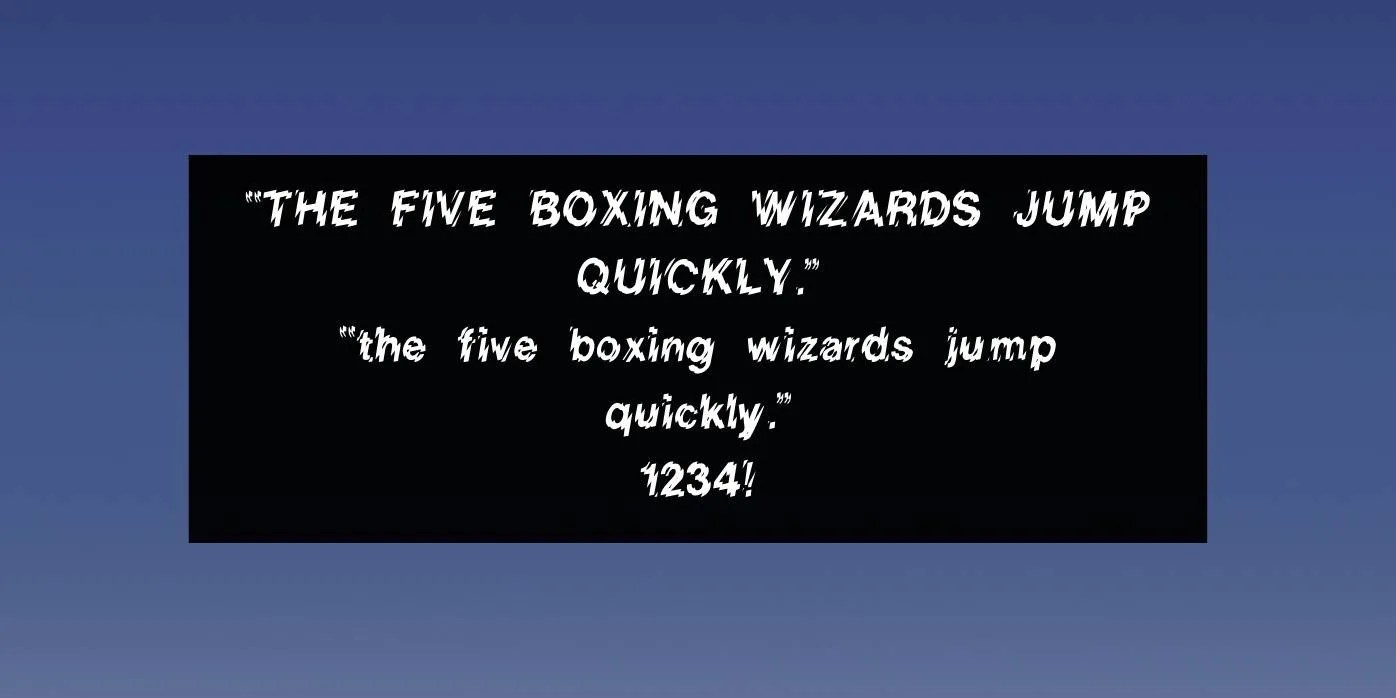
Glasses House Font . Glass houses by digital graphic labs. Download and install the glass houses font by digital graphic labs. Download glass houses font · free for commercial use · years in the making, glass houses has a shattered glass feel. Glass houses regular font by digital graphic labs. The glass houses font has been downloaded 73,212 times. File script name glashou.ttf download free for personal use. 167,460 downloads (13 yesterday) 3 comments 100% free. Download glass houses regular font | 1 style free font. Free download of glass houses font. Download glass houses font for free!
Download glass houses font · free for commercial use · years in the making, glass houses has a shattered glass feel. File script name glashou.ttf download free for personal use. Glass houses regular font by digital graphic labs. Glass houses by digital graphic labs. The glass houses font has been downloaded 73,212 times. Download and install the glass houses font by digital graphic labs. Download glass houses font for free! Free download of glass houses font. 167,460 downloads (13 yesterday) 3 comments 100% free. Download glass houses regular font | 1 style free font.
Glass Houses font
Glasses House Font Download glass houses font for free! Download glass houses regular font | 1 style free font. 167,460 downloads (13 yesterday) 3 comments 100% free. Download glass houses font for free! Free download of glass houses font. The glass houses font has been downloaded 73,212 times. File script name glashou.ttf download free for personal use. Download glass houses font · free for commercial use · years in the making, glass houses has a shattered glass feel. Download and install the glass houses font by digital graphic labs. Glass houses regular font by digital graphic labs.
Glass font Royalty Free Vector Image VectorStock Glasses House Font The glass houses font has been downloaded 73,212 times. Download glass houses font for free! Download glass houses regular font | 1 style free font. Download glass houses font · free for commercial use · years in the making, glass houses has a shattered glass feel. Download and install the glass houses font by digital graphic labs. Free download of. Glasses House Font.
Glass Houses font Glasses House Font Download glass houses regular font | 1 style free font. Free download of glass houses font. Download and install the glass houses font by digital graphic labs. Glass houses regular font by digital graphic labs. Download glass houses font for free! Glass houses by digital graphic labs. File script name glashou.ttf download free for personal use. The glass houses font. Glasses House Font.
3d glasses effect alphabet font type alphabet Vector Image Glasses House Font Download glass houses regular font | 1 style free font. File script name glashou.ttf download free for personal use. 167,460 downloads (13 yesterday) 3 comments 100% free. Download and install the glass houses font by digital graphic labs. Download glass houses font · free for commercial use · years in the making, glass houses has a shattered glass feel. Free. Glasses House Font.
Glass Houses font Glasses House Font The glass houses font has been downloaded 73,212 times. 167,460 downloads (13 yesterday) 3 comments 100% free. Download glass houses font for free! File script name glashou.ttf download free for personal use. Download and install the glass houses font by digital graphic labs. Download glass houses regular font | 1 style free font. Free download of glass houses font. Download. Glasses House Font.
Sunglass Font · 1001 Fonts Glasses House Font Download glass houses font for free! Glass houses regular font by digital graphic labs. 167,460 downloads (13 yesterday) 3 comments 100% free. Download glass houses font · free for commercial use · years in the making, glass houses has a shattered glass feel. Free download of glass houses font. The glass houses font has been downloaded 73,212 times. Download glass. Glasses House Font.
Need Glasses ? font Glasses House Font Glass houses by digital graphic labs. The glass houses font has been downloaded 73,212 times. Glass houses regular font by digital graphic labs. Free download of glass houses font. Download glass houses font for free! Download glass houses font · free for commercial use · years in the making, glass houses has a shattered glass feel. 167,460 downloads (13 yesterday). Glasses House Font.
glasses Font Download For Free, View Sample Text, Rating And More On Glasses House Font The glass houses font has been downloaded 73,212 times. Glass houses regular font by digital graphic labs. Download glass houses regular font | 1 style free font. Download glass houses font · free for commercial use · years in the making, glass houses has a shattered glass feel. Free download of glass houses font. Glass houses by digital graphic labs.. Glasses House Font.
Cool Glasses Font Download Glasses House Font 167,460 downloads (13 yesterday) 3 comments 100% free. Download glass houses regular font | 1 style free font. Download glass houses font · free for commercial use · years in the making, glass houses has a shattered glass feel. Glass houses regular font by digital graphic labs. File script name glashou.ttf download free for personal use. Download glass houses font. Glasses House Font.
Glass font Royalty Free Vector Image VectorStock Glasses House Font Download glass houses font for free! Glass houses by digital graphic labs. Glass houses regular font by digital graphic labs. Download glass houses font · free for commercial use · years in the making, glass houses has a shattered glass feel. The glass houses font has been downloaded 73,212 times. File script name glashou.ttf download free for personal use. 167,460. Glasses House Font.